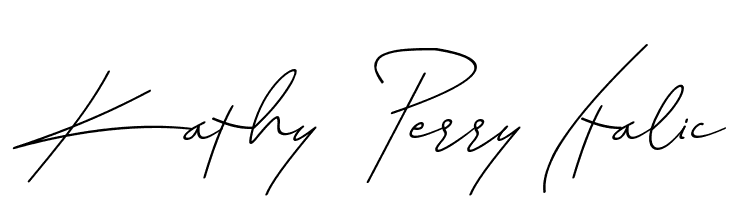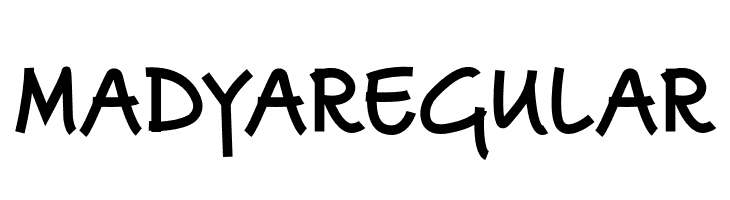
A bold, dynamic font with brush-like strokes and a playful style.
A flowing, elegant script font with dynamic cursive letterforms.
A bold, playful handwritten font with expressive strokes and a lively character.
A bold, decorative font inspired by vintage neon signs with bulb-like cutouts.
A modern, cursive script font with elegant loops and swashes.
A festive font with uppercase candle letters and lowercase balloon letters, perfect for celebrations.
A bold, playful font with an ink-splatter effect and hand-drawn style.
A bold, textured font with a distressed, vintage style.
A bold, modern font with a blurred, dynamic effect and horizontal line pattern.